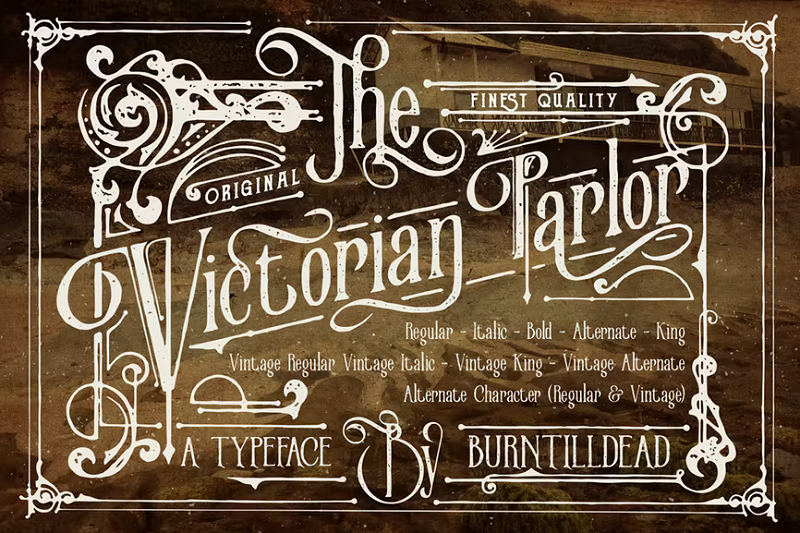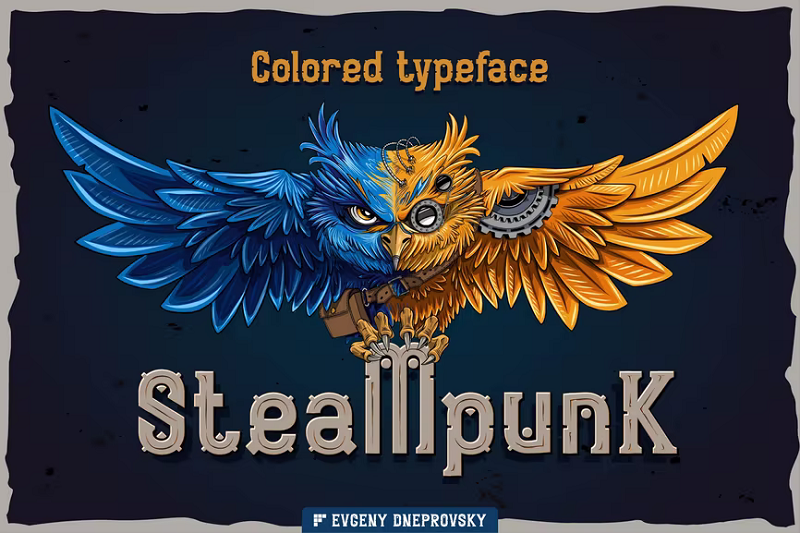
27 Best Steampunk Fonts For Retrofuturistic Designs
Steampunk fonts are in a category all of their own. These creative, mesmerizing, retrofuturistic fonts blend the old with the new, conjuring up images of Victorian-era England and the American Wild West.
They create a unique aesthetic that’s ideal for certain types of sci-fi and fantasy book covers, movie posters, and fashion designs.
Below, we’ve listed 27 of the best Steampunk fonts (free and premium) we could find. These fonts are sure to get your creative gears whirring.
What Are Steampunk Fonts?
Steampunk is a subgenre of science fiction inspired by 19th-century fashion and steam-powered machinery. It blends this old-fashioned aesthetic with elements of science fiction. Think flying goggles, gears, coal, petticoats, top hats, and timepieces.
Steampunk has evolved into a subculture that’s inspired many novels, games, and movies. These creative works are usually set in a dystopian world in which technological progress was based on the steam engine.
Steampunk fonts are typefaces that try to encapsulate this unique aesthetic and subculture. There’s no hard-and-fast rule about what steampunk fonts must look like, but they’re typically characterized features such as:
- Victorian-style designs
- Mechanical elements (cogs, gears, pipes, etc.)
- Unusual or heavily decorated letterforms
27 Best Steampunk Fonts
1. Steampunk 3D Color Font – Our Top Pick
First up, we have this incredibly detailed Steampunk-inspired 3D Color font by Cruzine. Color fonts like this use a relatively new type of font format called OpenType SVG. This format allows designers to incorporate richer details like colors, gradients, and textures within typefaces.
That’s why this font is able to look so realistic and why it has such a cool 3D effect. The drawback is that you’ll need modern design software (like illustrator 2018+ and Photoshop 2017+) to open this font correctly.
Why it’s our top pick
In true steampunk style, the letterforms in this type look as if they’re built from the interlocking parts of some grand machine. The 3D effect is hyper-realistic and makes your text genuinely look as if it’s constructed out of bolts, nuts, and metal. It doesn’t get more steampunk than this.
2. Starship
Next up, we have another fantastical steampunk font by Cruzine. Starship features ornamental, vintage letterforms with intricate swirls and outlandish flourishes. It has a touch of elegance and heaps of personality. Can’t you just imagine it printed across the side of a mysterious, steam-powered flying machine in some fictitious land?
3. Octopus
Here’s another unique retro font with a distinctly steampunk-esque aesthetic. It comes in six styles: regular, grunge, inline grunge, bold, and bold grunge. Inline grunge is our personal favorite. The texture and intricate detailing make the letterforms look really unique. Octopus is also a highly readable font, so it will work well in titles and headlines.
4. Steampunk
Next up, we have the aptly-named Steampunk font by Fractal87. It’s a neat, machine-like font with lots of intricate detailing. It comes in 5 different styles: 3 black styles and 2 colorized. The colorized versions are our favorites and feature a clockwork pattern of interlocking cogs in both white and copper.
5. Victorian Collection
Next up, we have a huge Victorian font collection that’ll make you think you’ve traveled back in time to the 19th century. This gigantic pack comes with 1814 glyphs in total.
There are two main versions of the typeface: King Edward and Queen Elizabeth. Both of these Victorian-inspired typefaces are highly decorative and ornamental so they’ll work well on classical designs.
Each also comes in various styles including regular, inline, outline, shadow, and textured. You can layer up multiple styles together for a cool layered combination that seems to jump off the page.
In addition to all the usual glyphs, you also get access to a huge collection of alternates and dingbats that you can use to spice up your designs.
6. Arbatosh Regular
Arbatosh Regular is a unique vintage font with an ornamental style. It’s available for free and comes in four styles: regular, grunge, inline, and grunge inline. It’s perfect for headers and classy, old-school designs.